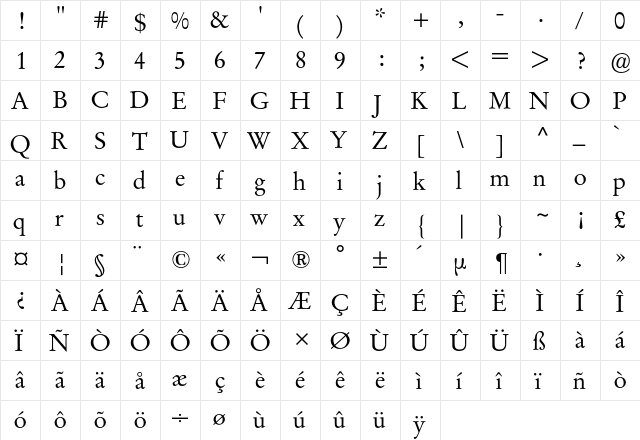
Garamond Stempel BQ Regular Font Preview
Garamond Stempel BQ Regular
Design Context for Garamond Stempel BQ Typeface
Garamond Stempel BQ is a composed and adaptable typeface that performs quietly and consistently across a wide range of design contexts.